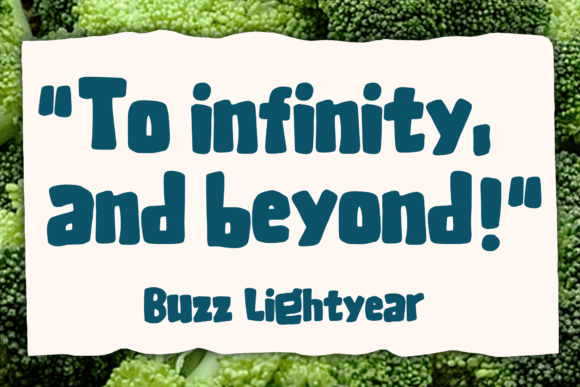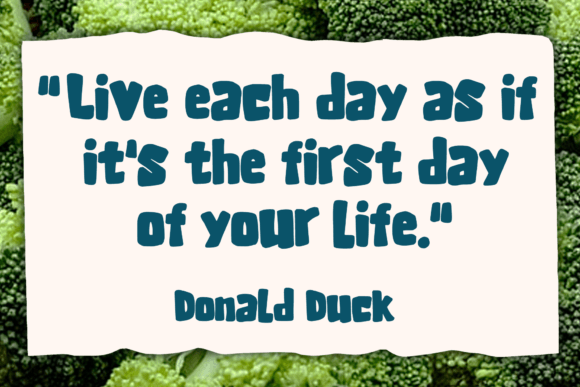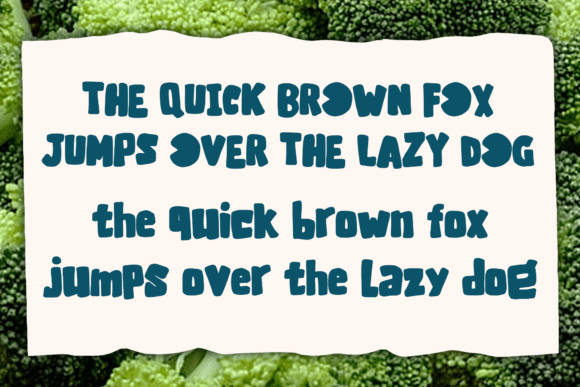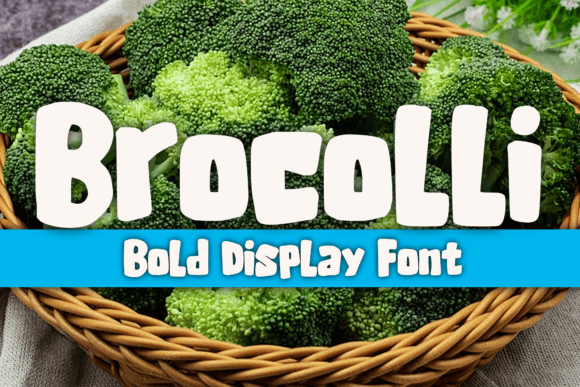
Brocolli Font: The Fun and Bold Handwritten Display Font for Creative Designs
Are you looking for a font that can add a playful and casual touch to your designs? Look no further than Brocolli Font! This fun and bold handwritten display font is perfect for a wide range of creative projects, from t-shirts and kids’ book designs to greeting cards, stickers, and posters. In this article, we’ll explore the features and benefits of Brocolli Font, and show you how to use it to create lovely designs that will capture your audience’s attention.
What is Brocolli Font?
Brocolli Font is a handwritten display font that is designed to add a fun and playful touch to your designs. Its bold and versatile style makes it perfect for a wide range of applications, from casual and informal designs to more formal and creative projects. The font features a unique and quirky style that is sure to stand out from the crowd, making it ideal for designers and crafters who want to add a personal touch to their work.
Key Features of Brocolli Font
So, what makes Brocolli Font so special? Here are some of its key features:
- Fun and playful style: Brocolli Font has a unique and quirky style that is sure to add a playful touch to your designs.
- Bold and versatile: The font is bold and versatile, making it perfect for a wide range of applications, from casual and informal designs to more formal and creative projects.
- Handwritten display font: Brocolli Font is a handwritten display font, which means it’s perfect for adding a personal touch to your designs.
- Easy to read: Despite its bold and playful style, Brocolli Font is easy to read, making it perfect for designs that require a clear and concise message.
Uses for Brocolli Font
So, what can you use Brocolli Font for? The possibilities are endless! Here are some ideas to get you started:
- T-shirts and apparel: Brocolli Font is perfect for designing t-shirts, hoodies, and other apparel that requires a fun and playful touch.
- Kids’ book designs: The font’s playful and quirky style makes it perfect for kids’ book designs, including titles, headings, and body text.
- Greeting cards and invitations: Brocolli Font is ideal for designing greeting cards, invitations, and other stationery that requires a personal touch.
- Stickers and posters: The font’s bold and playful style makes it perfect for designing stickers and posters that require a fun and eye-catching design.
Tips for Using Brocolli Font
Here are some tips for using Brocolli Font in your designs:
- Use it sparingly: Brocolli Font is a bold and playful font, so use it sparingly to avoid overwhelming your design.
- Pair it with other fonts: Brocolli Font pairs well with other fonts, so experiment with different combinations to find the perfect look for your design.
- Experiment with colors: The font’s playful style makes it perfect for experimenting with different colors and color combinations.
- Have fun: Most importantly, have fun with Brocolli Font! Its playful and quirky style is sure to inspire creativity and add a personal touch to your designs.